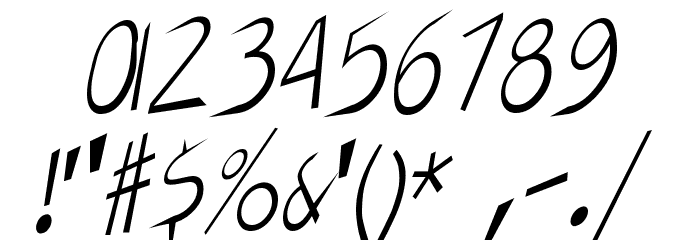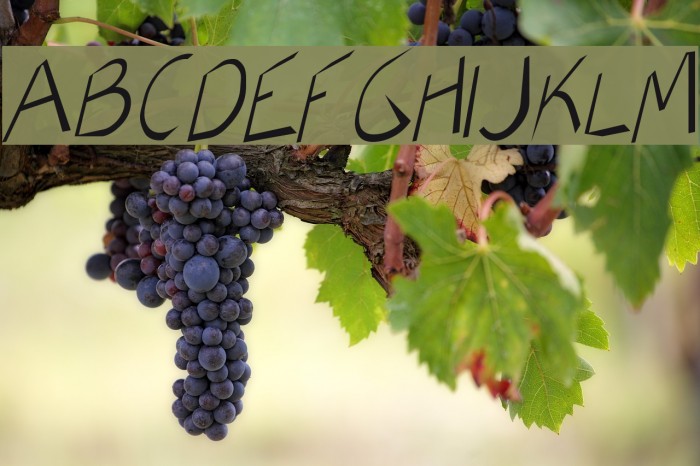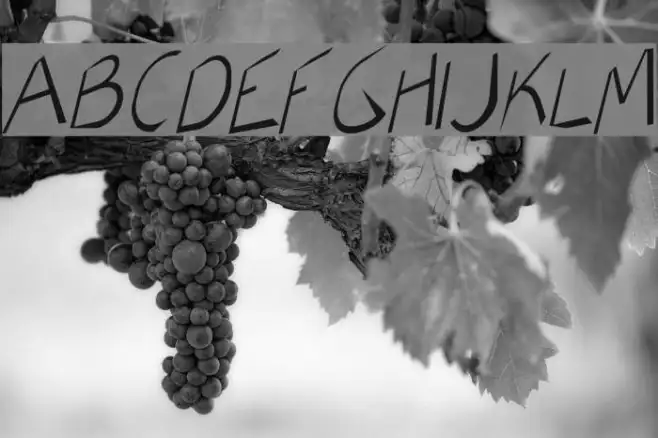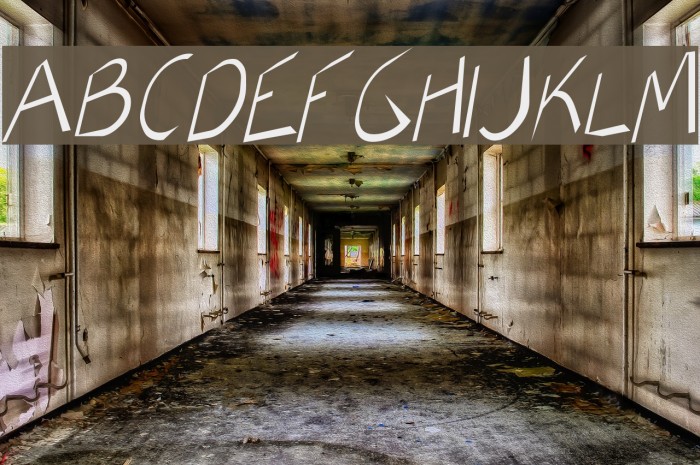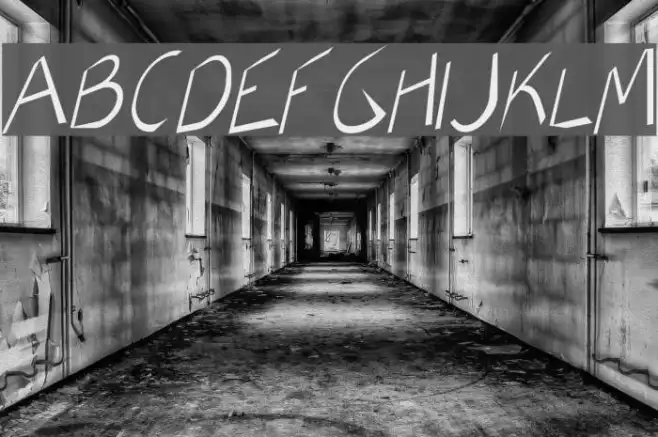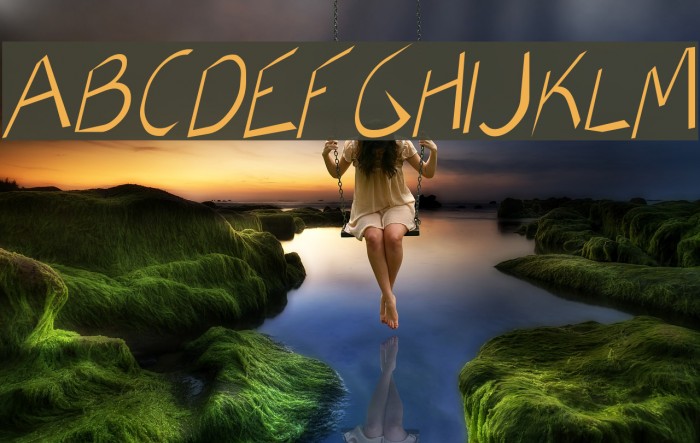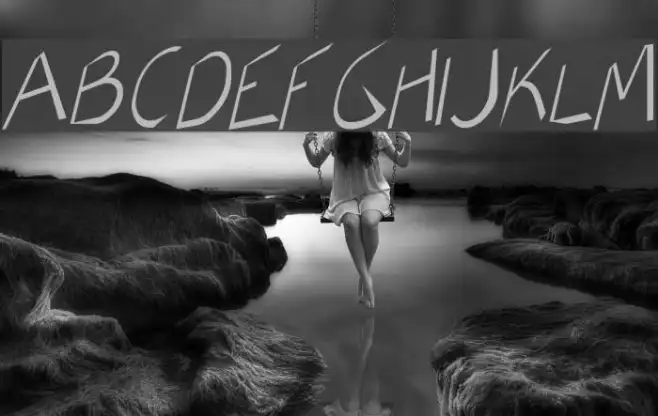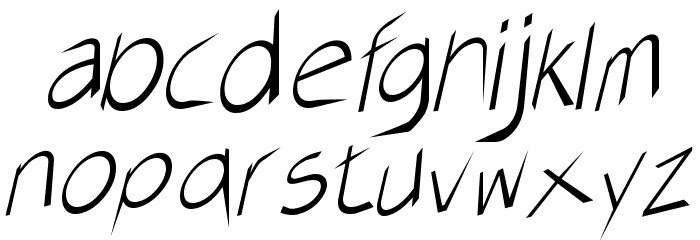
AirCut Light Font
AirCut Light Description
This font features a dynamic and angular design, characterized by sharp, pointed edges and a sense of movement. The letters are slightly slanted, giving a forward-leaning appearance that suggests speed and agility. The strokes vary in thickness, with some parts being thin and others bold, creating a high contrast that adds to its energetic feel. The overall style is modern and edgy, making it suitable for projects that require a contemporary and bold statement. The numerals and special characters maintain the same sharp aesthetic, ensuring consistency across all elements.
| Proposed Projects | Ideal for sports branding, dynamic posters, edgy advertisements, and modern logo designs. |